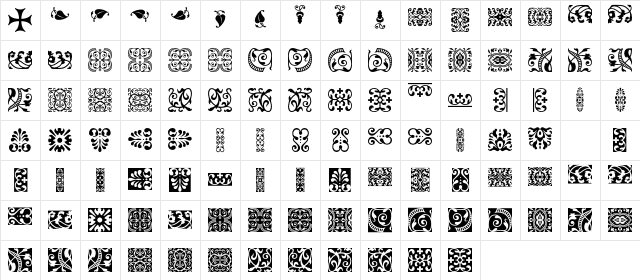
DTL Elzevir Ornaments
Style: Ornaments
Design Context for DTL Elzevir
DTL Elzevir is built around its visual character rather than neutral utility - its distinctive forms are designed to make an impression at display sizes.
Font Pairing: Pair with a clean neutral sans-serif for body copy to let DTL Elzevir's character lead without overwhelming the composition.
Pro Tip: Use DTL Elzevir exclusively at display sizes - it was designed to be seen, not read at length. Let a neutral companion handle body copy.